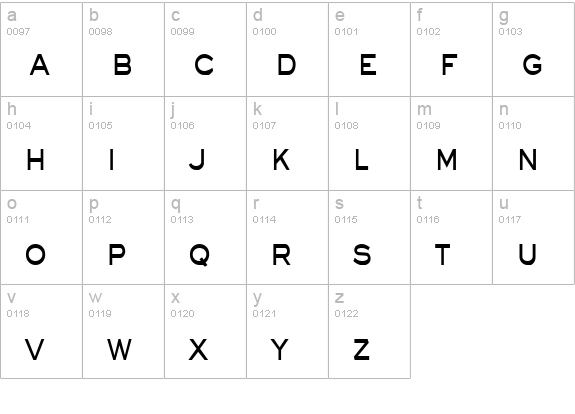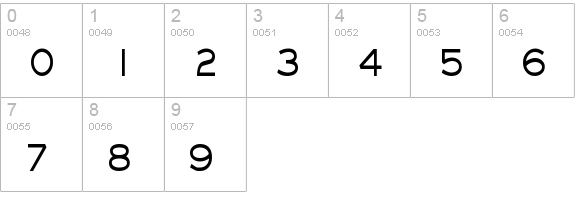
Eye glass Thin Bold Font Details
Eye glass Thin Bold is a delicate, low-contrast variant in the Eye typeface family \xE2\x80\x94 well suited to fashion editorial, minimal branding, and high-contrast display.
Eye glass Thin Bold font is a sleek and modern typeface that exudes sophistication and elegance. With its thin yet bold strokes, this font is perfect for making a statement in any design project. The sharp angles and clean lines give it a contemporary feel, making it suitable for a variety of purposes, from branding to editorial design. This eye-catching font is the perfect choice for those looking to add a touch of style and flair to their projects. Whether you're designing a poster, logo, or website, Eye glass Thin Bold font will make your text stand out and leave a lasting impression on your audience. Best of all, Eye glass Thin Bold font is available for free download at FontsMarket.com. So go ahead and elevate your designs with this stunning typeface without breaking the bank. Download it today and start creating beautiful typography that captures attention and leaves a lasting impact.